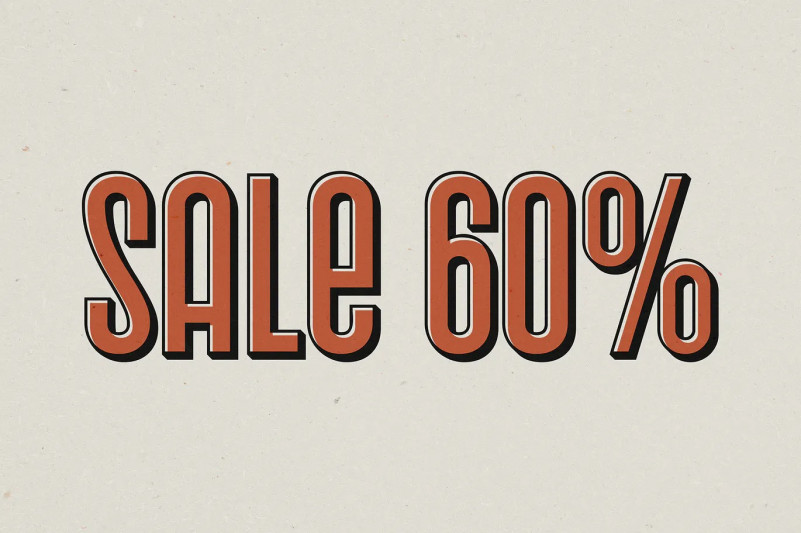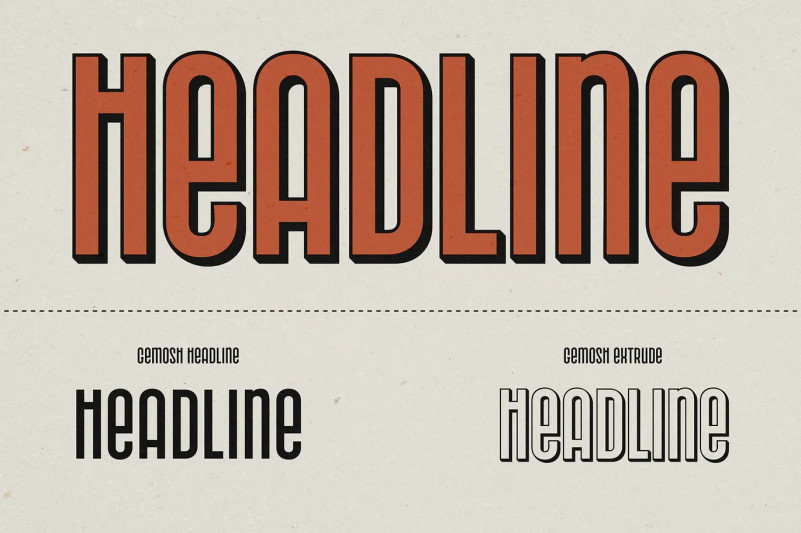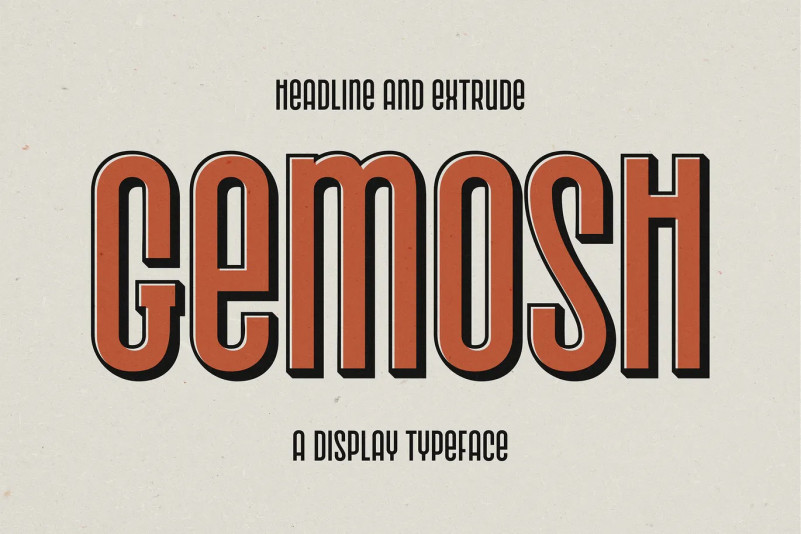
Gemosh Font
Gemosh is a display typeface. Comes in two styles Headline and Extrude, Gemosh perfect for retro or vintage nuances such as Signage, logotype, movie title, headlines, book cover, beer label, packaging, prints or something else.